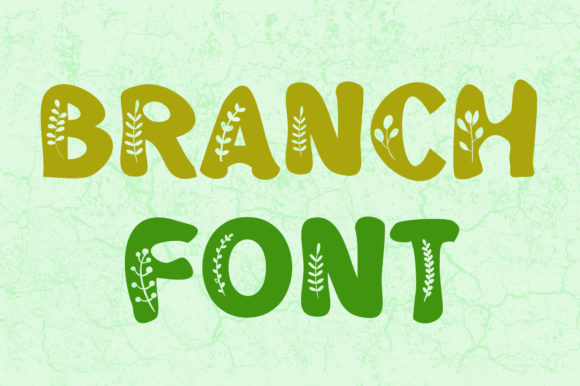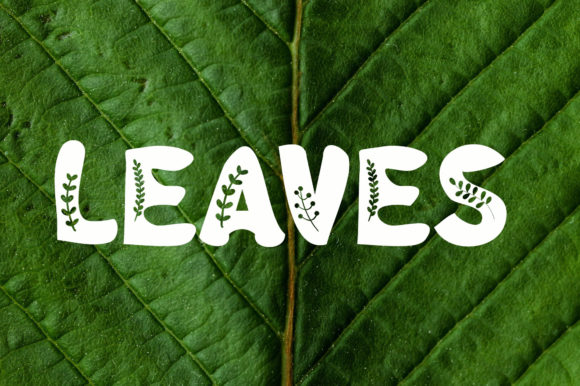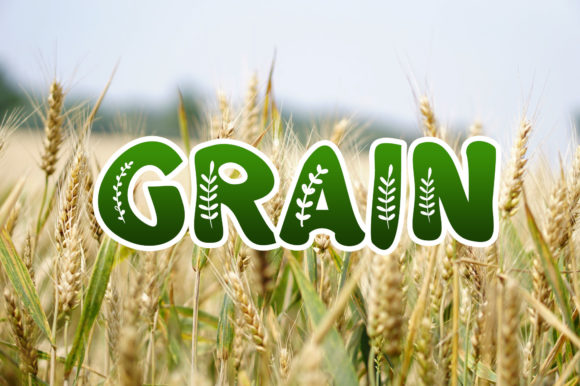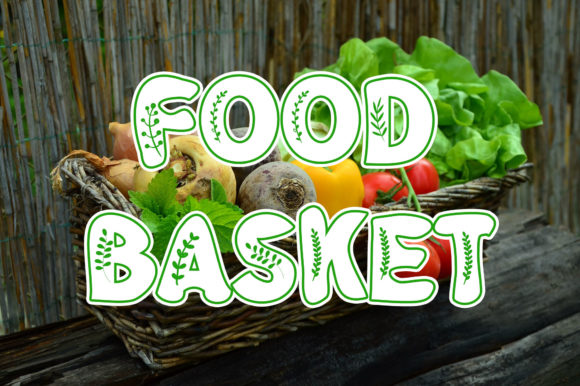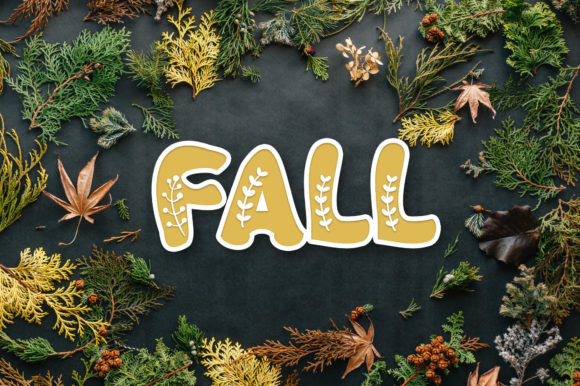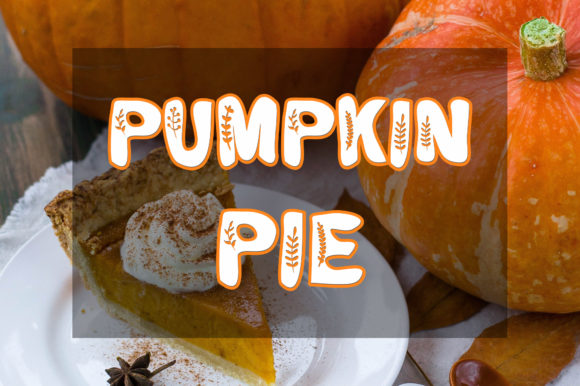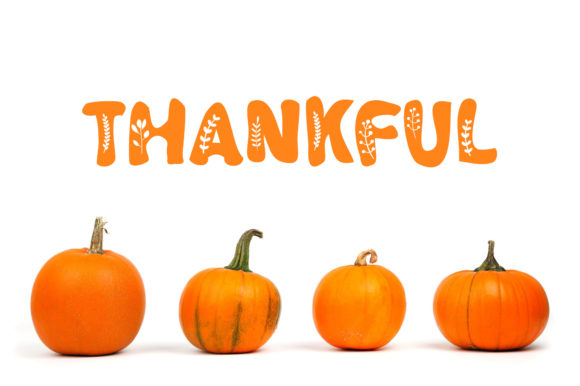
Introducing Branch Font: The Perfect Decorative Font for Your Creative Projects
Are you a designer, crafter, or DIY enthusiast looking for a unique and friendly font to add a personal touch to your projects? Look no further than Branch Font, a beautiful decorative font that features stunning brunch leaf illustrations. In this article, we’ll explore the features and benefits of Branch Font, and show you how it can elevate your designs to the next level.
What is Branch Font?
Branch Font is a decorative font that combines elegant typography with delightful brunch leaf illustrations. The font is designed to be friendly, approachable, and perfect for a wide range of creative projects. Whether you’re creating posters, logos, packaging, wedding invitations, website titles, or T-Shirts, Branch Font is the ideal choice.
Key Features of Branch Font
- Unique Illustrations: Branch Font features beautiful brunch leaf illustrations that add a touch of whimsy and personality to your designs.
- Decorative Typography: The font boasts elegant and decorative typography that’s perfect for titles, headings, and emphasis text.
- Versatile: Branch Font works great for a wide range of projects, from posters and logos to wedding invitations and website titles.
Benefits of Using Branch Font
- Adds Personality: Branch Font adds a personal touch to your designs, making them stand out from the crowd.
- Creates a Unique Look: The font’s unique illustrations and decorative typography create a distinctive look that’s sure to grab attention.
- Saves Time: With Branch Font, you can create stunning designs quickly and easily, saving you time and effort.
- Perfect for Branding: The font is ideal for creating custom logos, packaging, and marketing materials that reflect your brand’s personality.
How to Use Branch Font
- Pair with Other Fonts: Combine Branch Font with other fonts to create a unique and eye-catching design.
- Use for Headings and Titles: Use Branch Font for headings and titles to add emphasis and personality to your text.
Design Ideas with Branch Font
- Wedding Invitations: Create beautiful and unique wedding invitations that set the tone for a special day.
- Posters and Flyers: Design eye-catching posters and flyers that grab attention and communicate your message.
- Logos and Branding: Create custom logos and branding materials that reflect your business’s personality and values.
- Website Titles: Add a touch of personality to your website titles and headings with Branch Font.
In conclusion, Branch Font is a friendly decorative font that’s perfect for designers, crafters, and DIY enthusiasts. With its unique illustrations, decorative typography, and versatility, it’s the ideal choice for a wide range of creative projects. Whether you’re creating posters, logos, packaging, or website titles, Branch Font is sure to add a personal touch and elevate your designs to the next level.